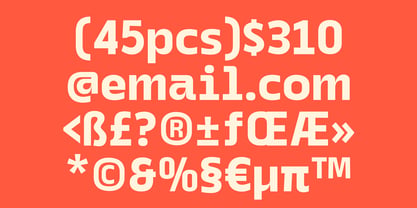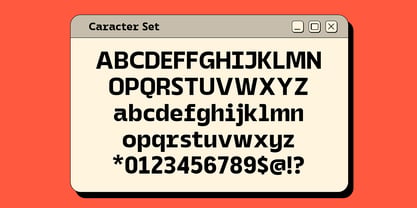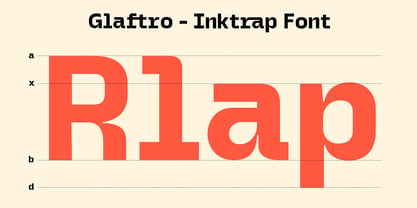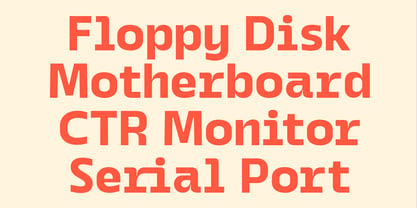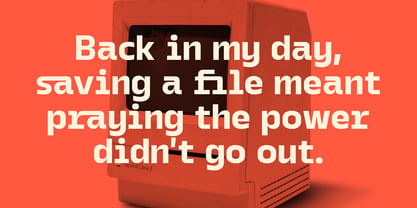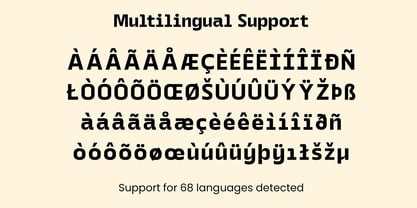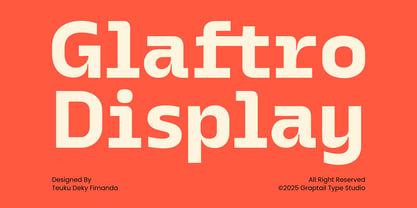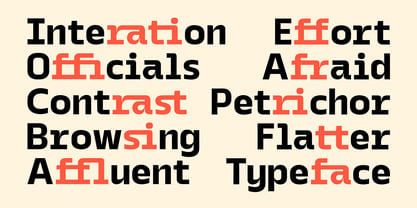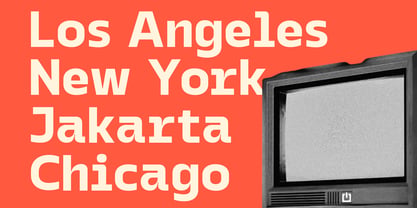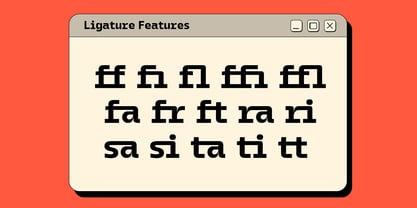
Glaftro
Die Schriftfamilie Glaftro wurde von Teuku Deky Firnanda entworfen und von Graptail veröffentlicht. Glaftro enthält 1 Stile. Mehr über diese Familie
Glaftro is a bold inktrap font characterized by strong shapes and precise cuts, giving each letter a confident and distinctive presence. Its unique inktrap details ensure it stands out in both digital and print applications while maintaining excellent readability. Featuring 10 stylish ligature options, Glaftro enables the creation of dynamic and striking typographic compositions with ease. This font is ideal for projects requiring a strong, modern, and professional aesthetic, including packaging design, movie titles and posters, T-shirt graphics, editorial layouts, and branding and logo design. Glaftro merges powerful geometry with intelligent typography features, delivering a font that commands attention wherever it is utilized.